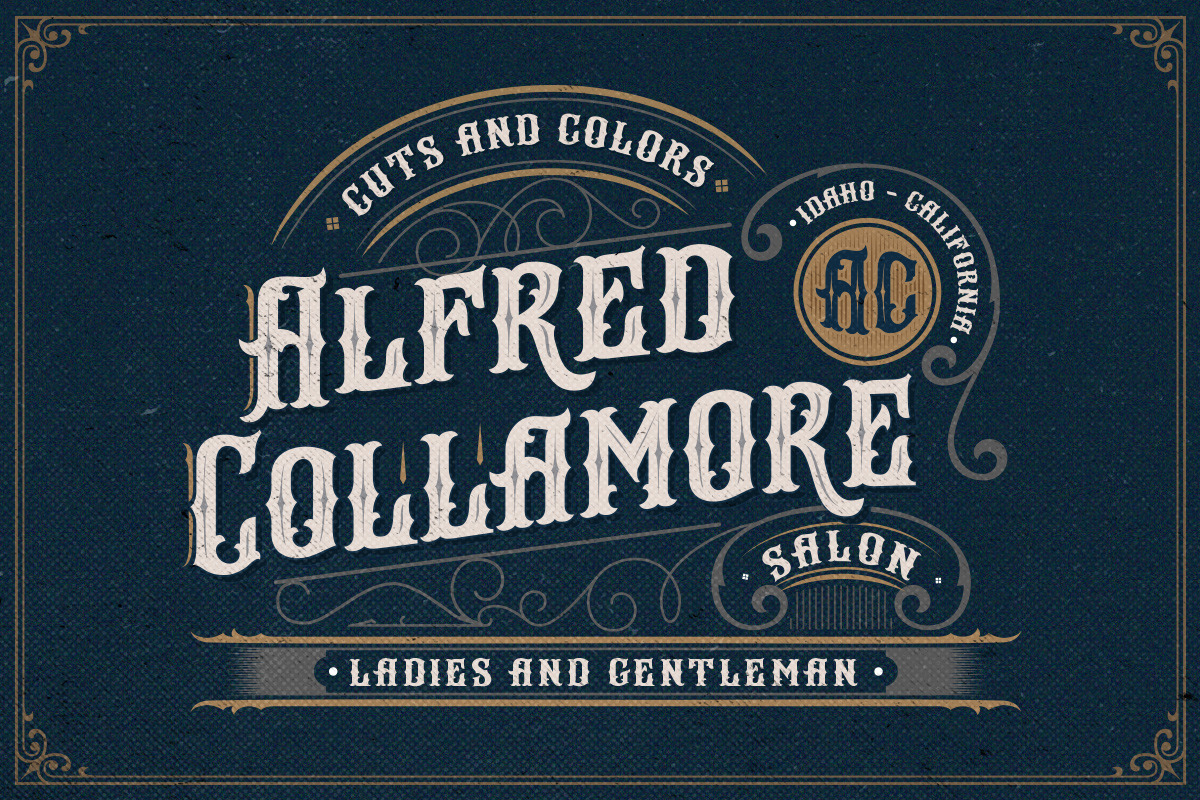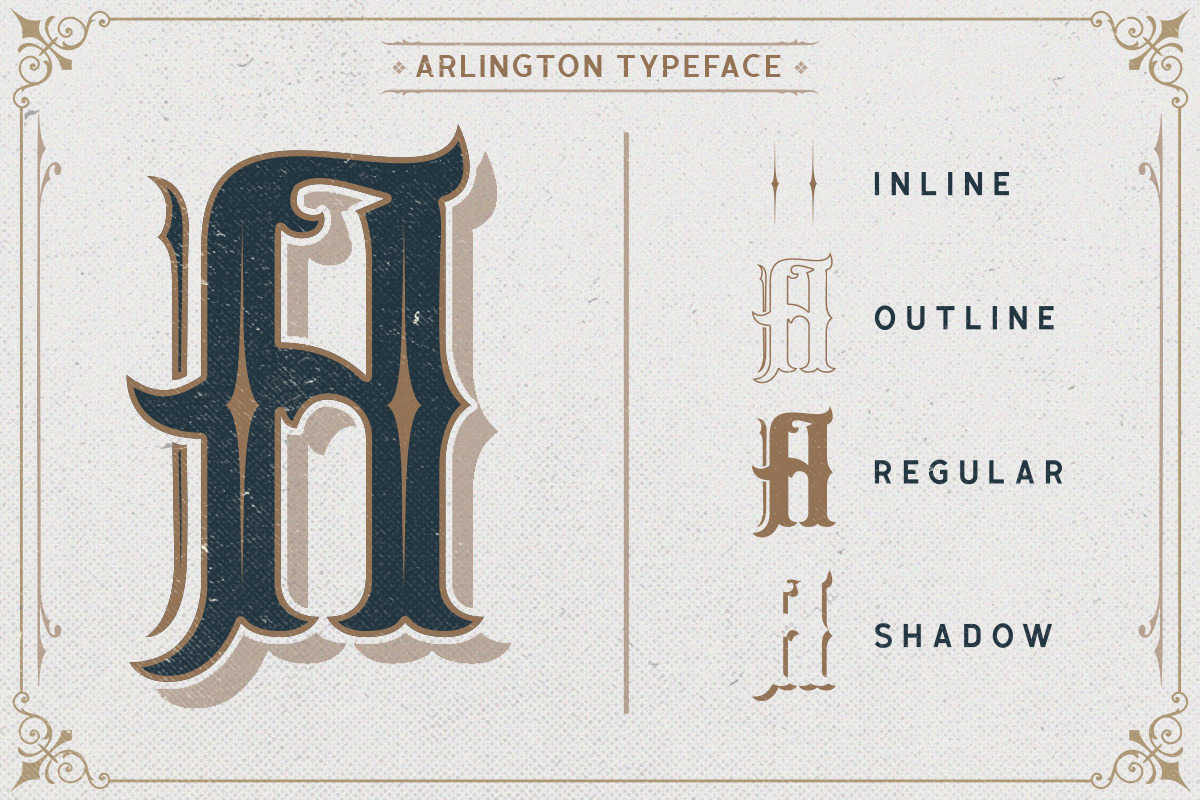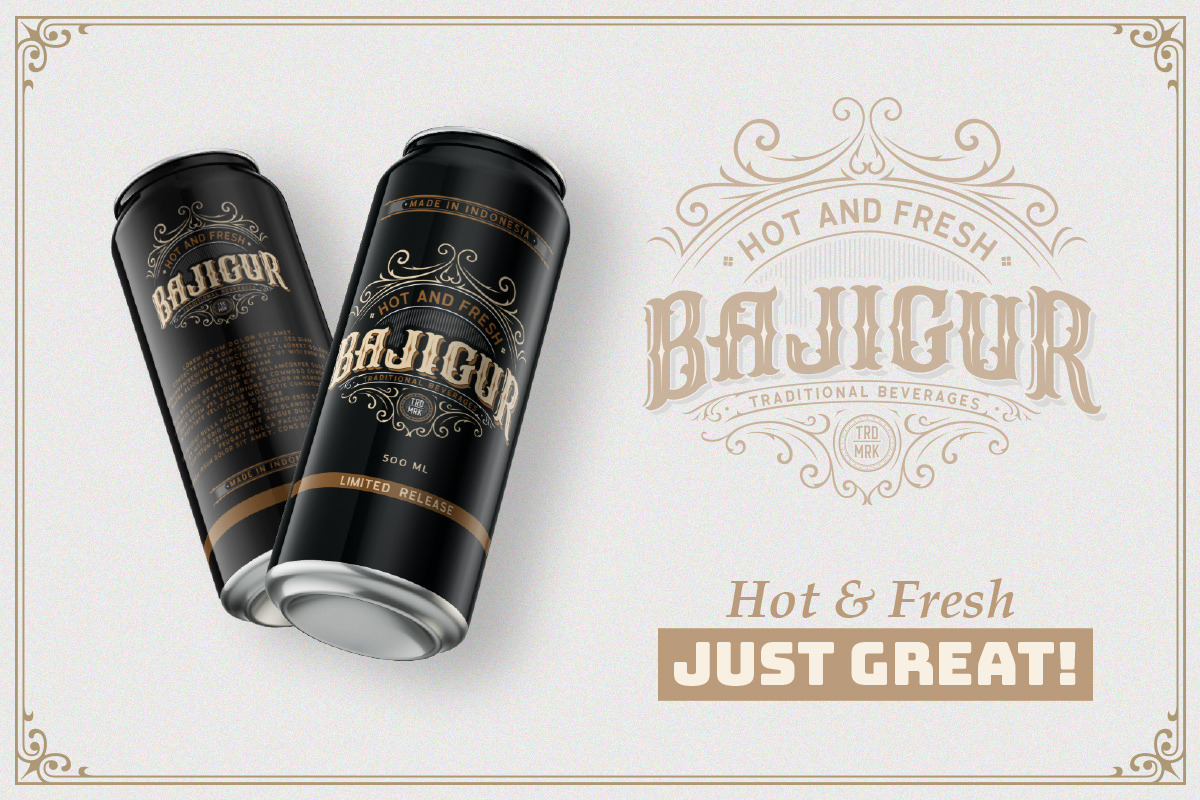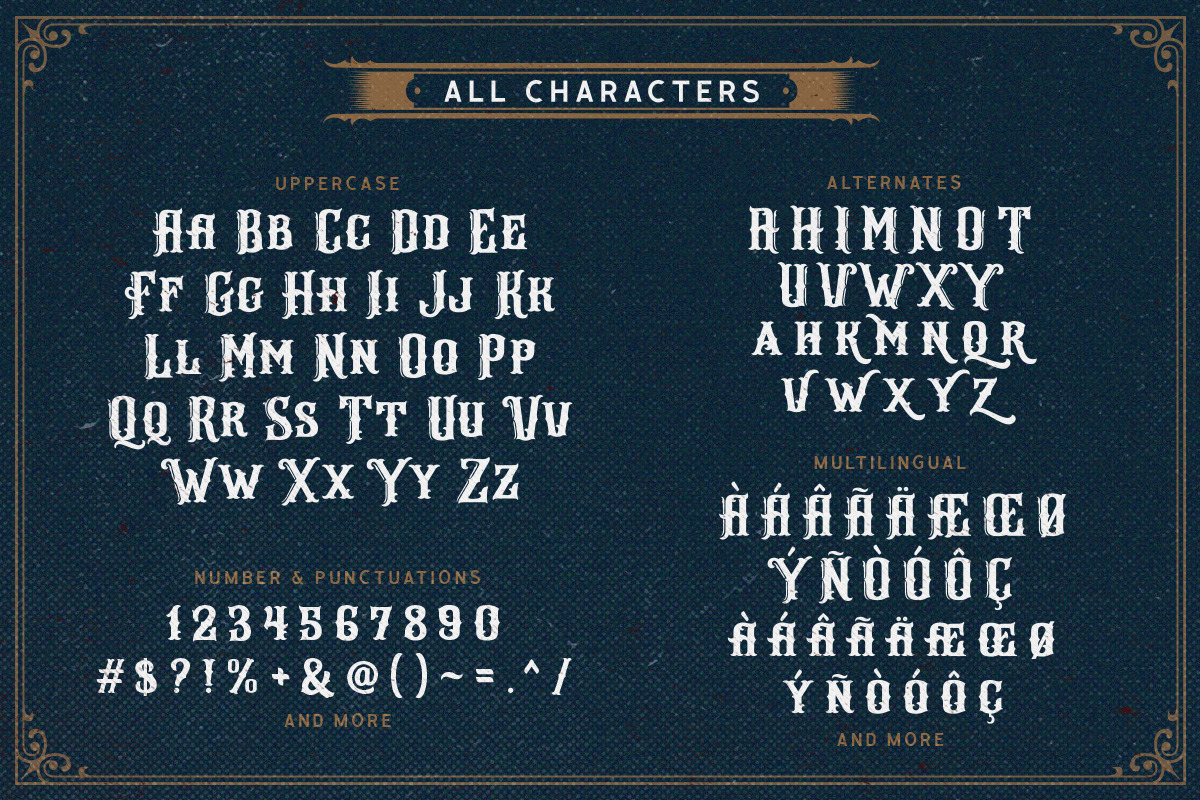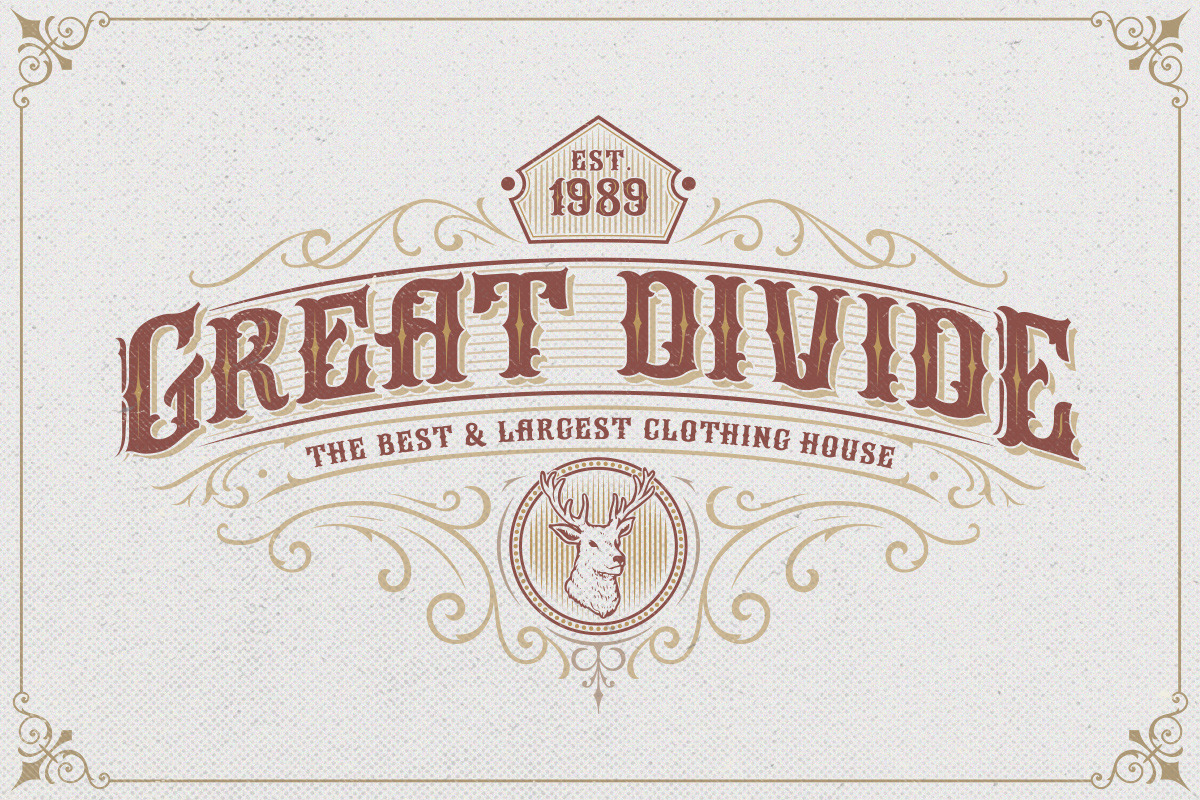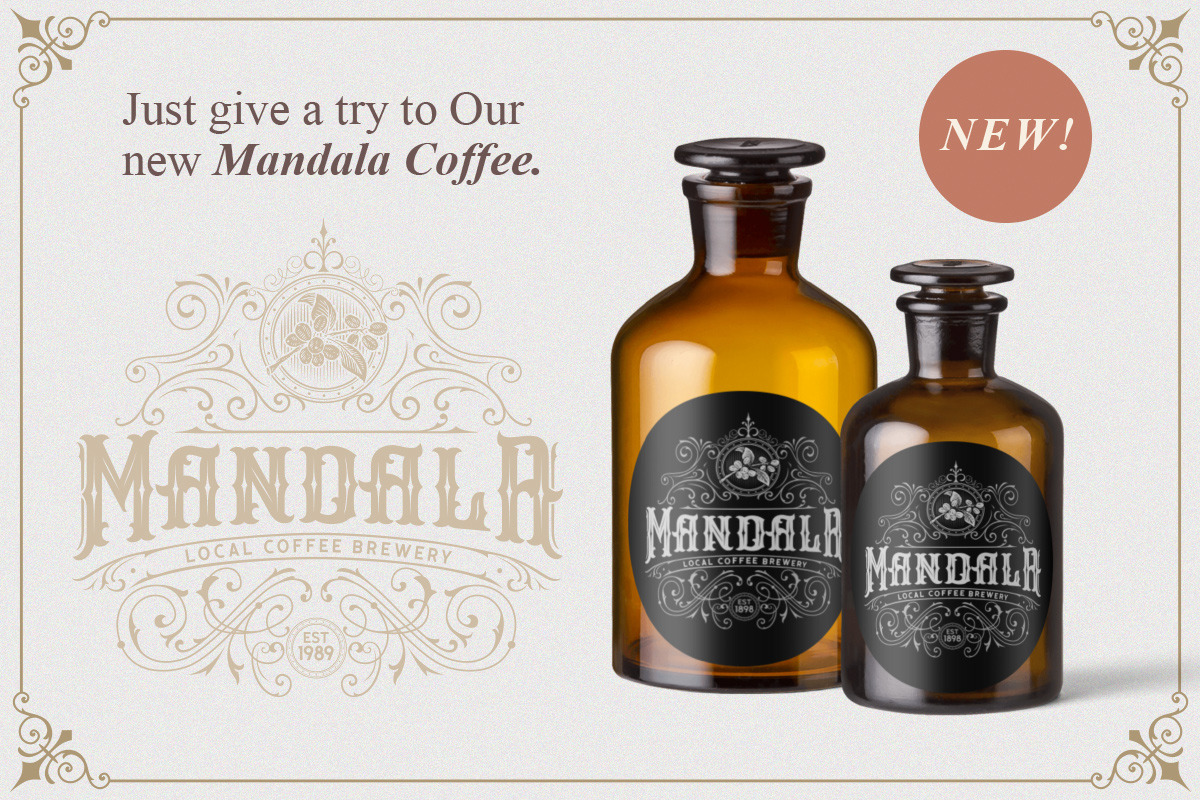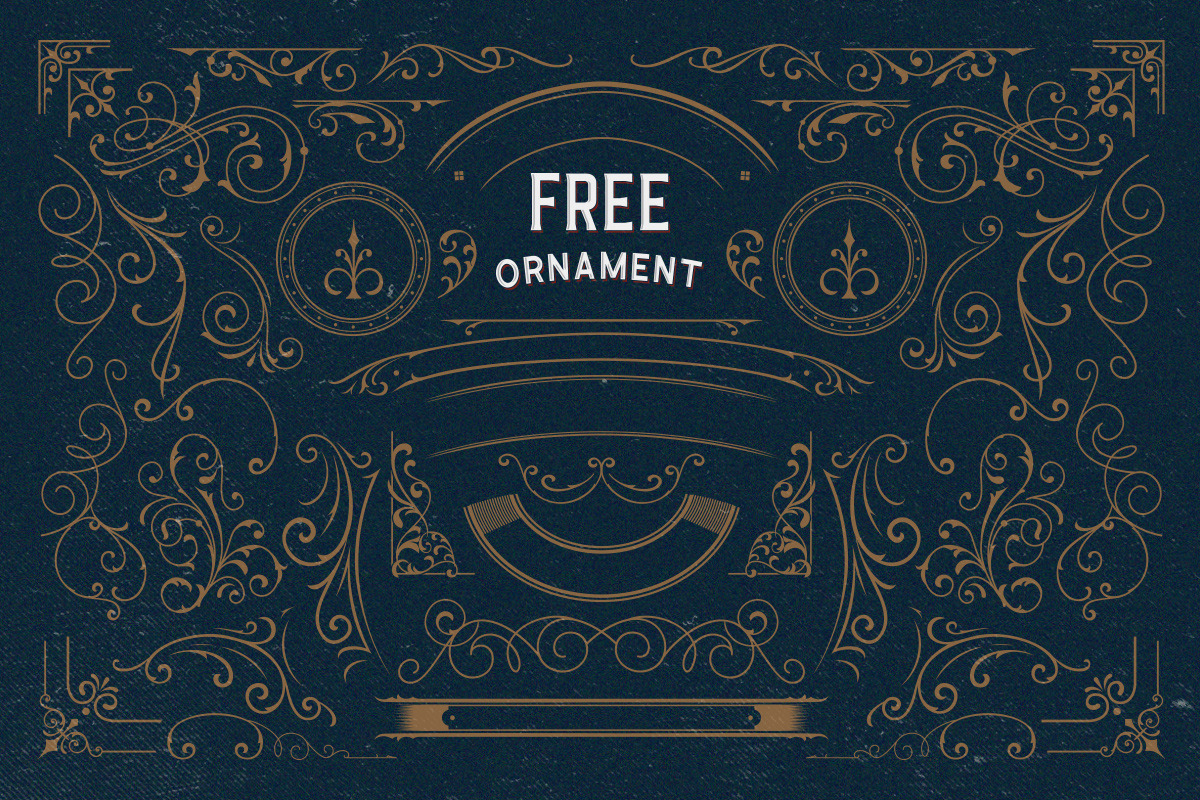
Arlington Layered Font & Ornaments
Introducing, Arlington. A layered typeface which is inspired by vintage lettering sign and art. While this font has a victorian touch, it still looks bold and solid. Very suitable for for headline, logotype, apparel, invitation, branding, packaging, advertising etc.
This typeface contains with beautiful decorative ornaments that ready to use to create a vintage lettering in sec. It also comes in uppercase, lowercase, punctuations, symbols & numerals, stylistic set alternate, ligatures, etc also support multilingual and already PUA encoded.